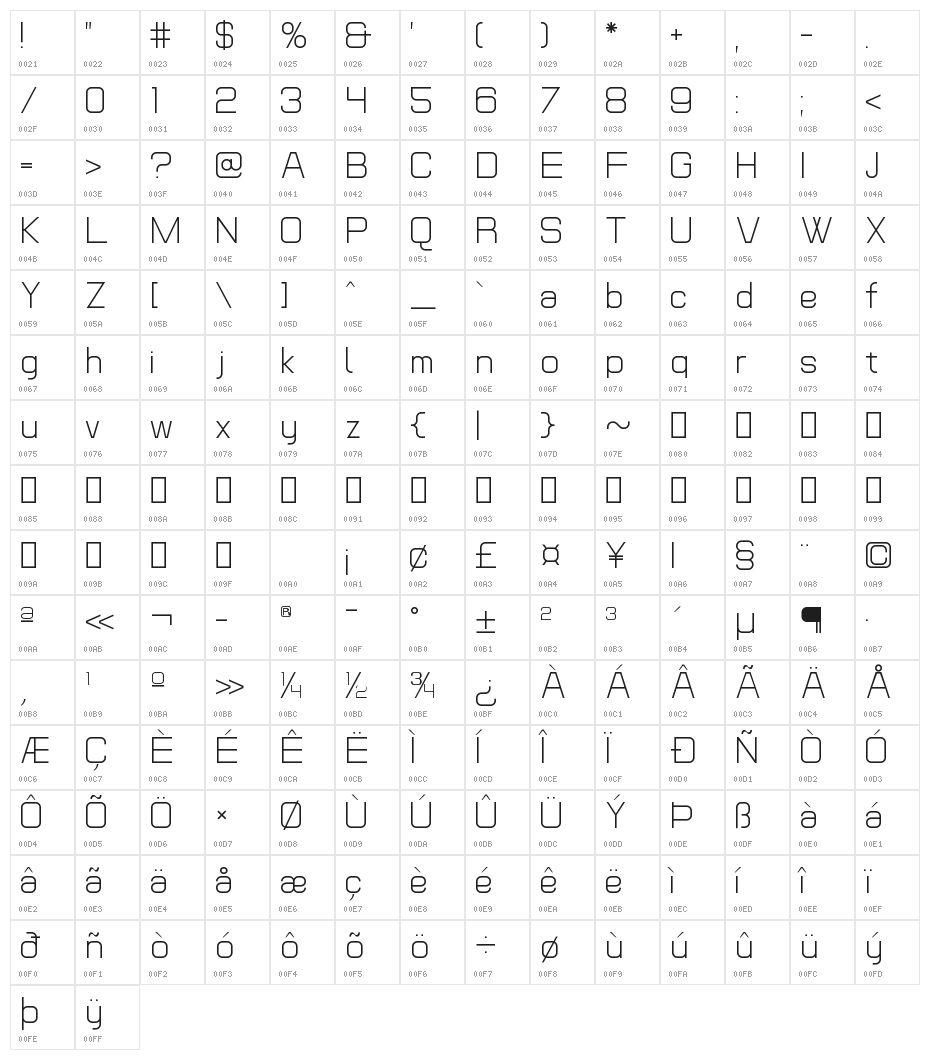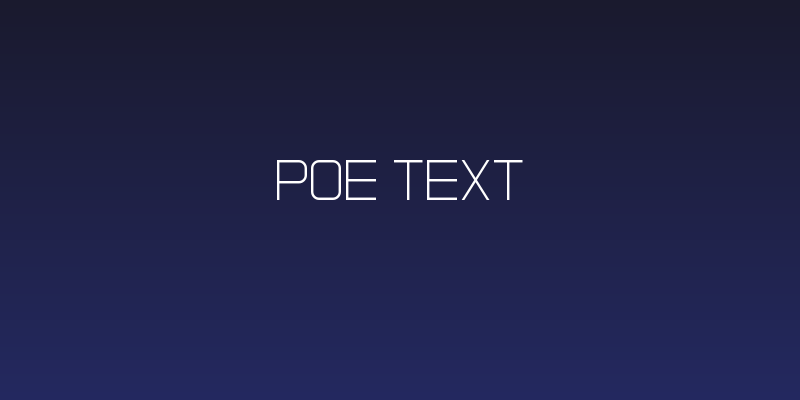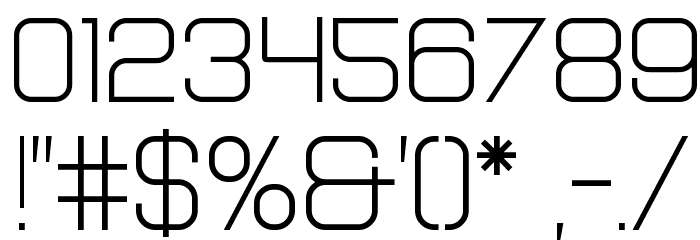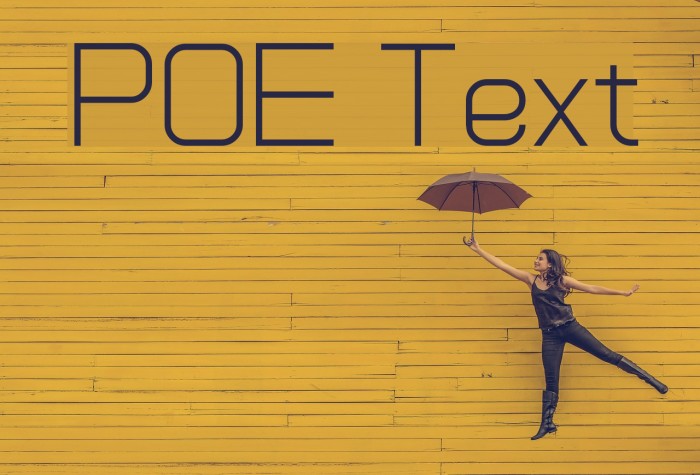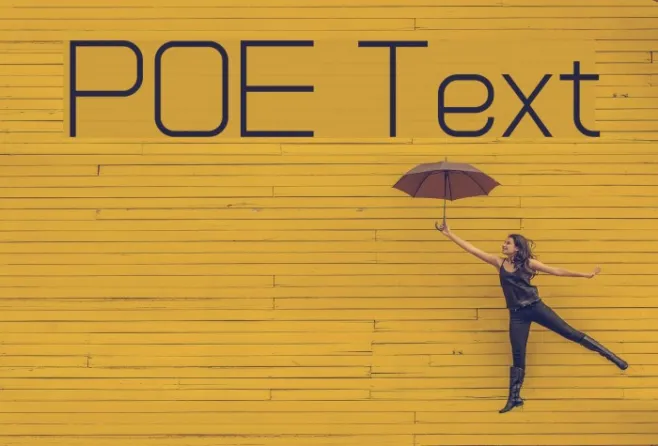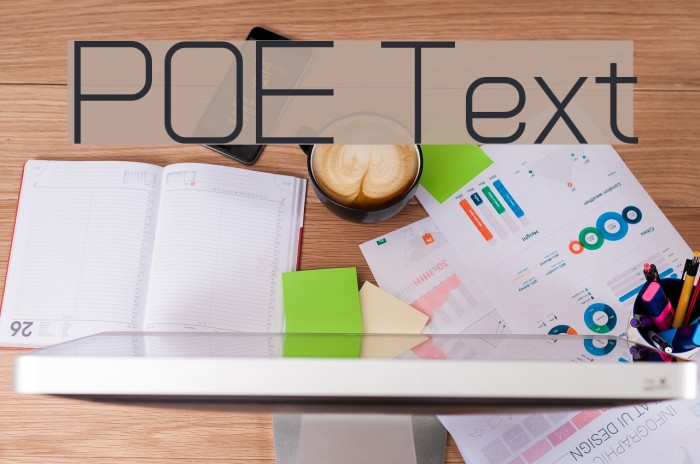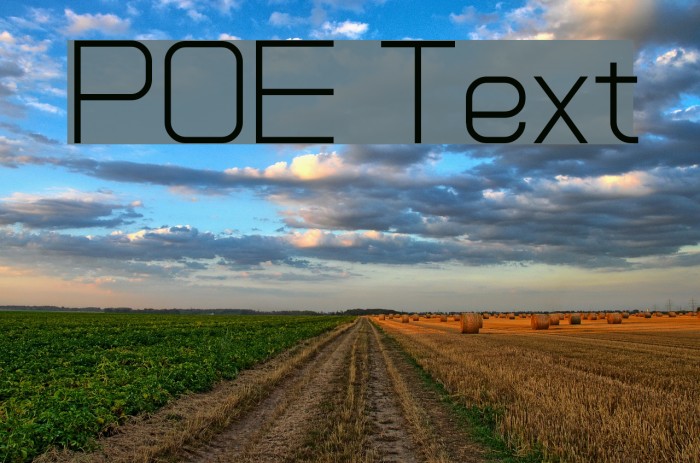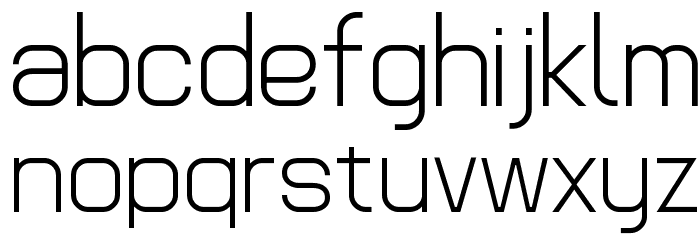
POE Text Font
POE Text Description
This font features a clean and modern sans-serif design with a geometric structure. The characters are uniform and balanced, with consistent stroke widths that give it a sleek and contemporary appearance. The uppercase letters are tall and slightly narrow, while the lowercase letters maintain a similar width, providing a harmonious look. The numerals are clear and easy to read, making them suitable for various applications. Special characters are well-defined, adding to the font's versatility. Overall, the font exudes a minimalist and professional vibe, making it ideal for digital and print media.
| Proposed Projects | Ideal for branding, web design, corporate materials, and editorial layouts. |